Choosing the right font is not just a matter of aesthetics when it comes to design. It is a crucial element that can significantly impact the overall effectiveness of your design.
Fonts play an important role in descripting your design's mood, style, and message, making it essential to select the perfect font that aligns with your vision and resonates with your target audience.
Fonts can inspire feelings, express professionalism, or inject a little humor into your design. They can improve readability, highlight important details, and create a unified visual identity.
With so many font choices available, knowing the various font kinds and their traits will help you make wise choices and take your design to new heights.
Understanding the Different Font Styles
Serif Fonts: Serif fonts are characterized by small lines, known as serifs, at the ends of the strokes. These fonts are often seen as classic and elegant. Examples of serif fonts include Times New Roman, Garamond, and Baskerville.
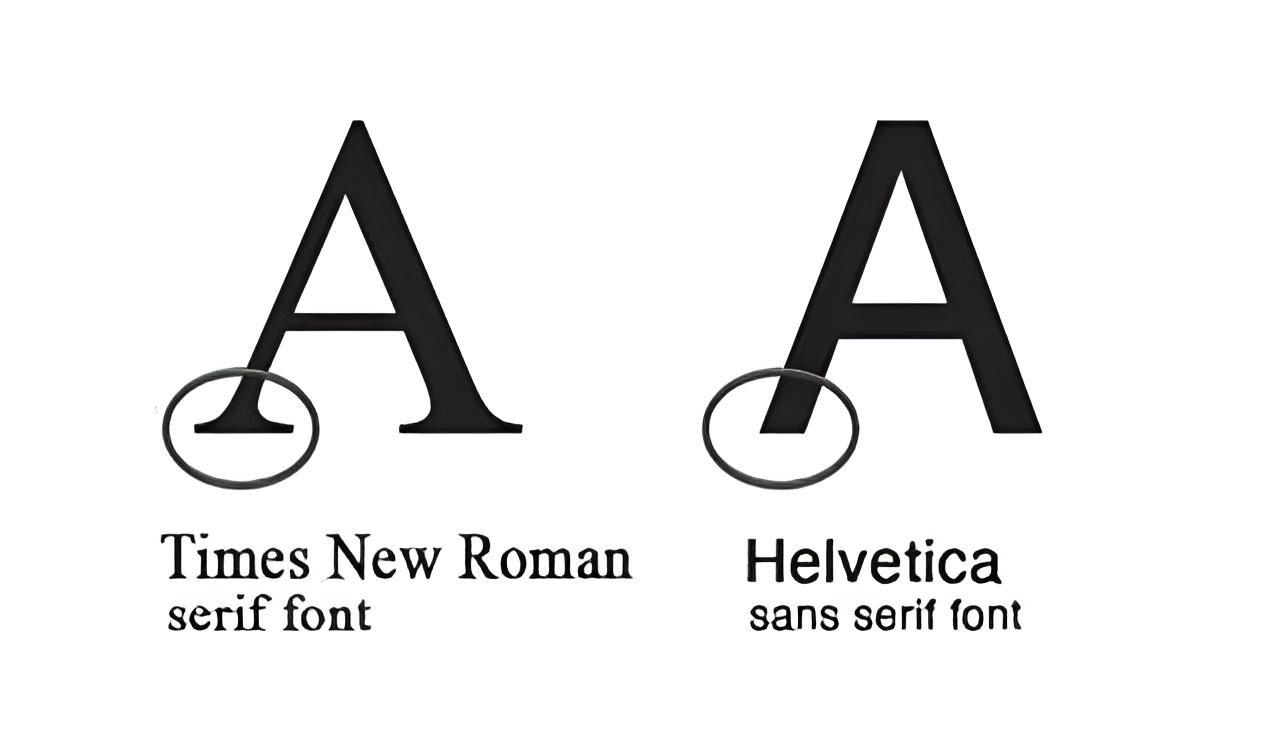
Sans Serif Fonts: Sans serif fonts, on the other hand, do not have serifs. They are considered more modern and cleaner. Popular sans serif fonts include Arial, Helvetica, and Trebuchet MS.